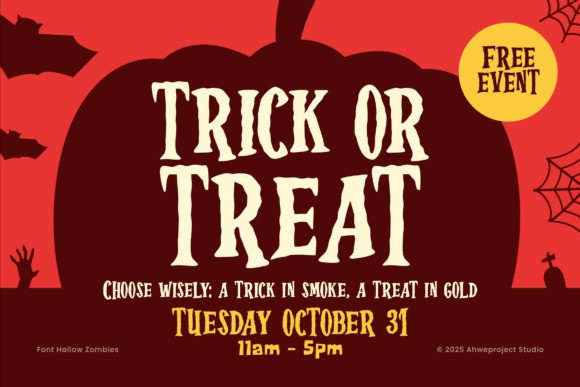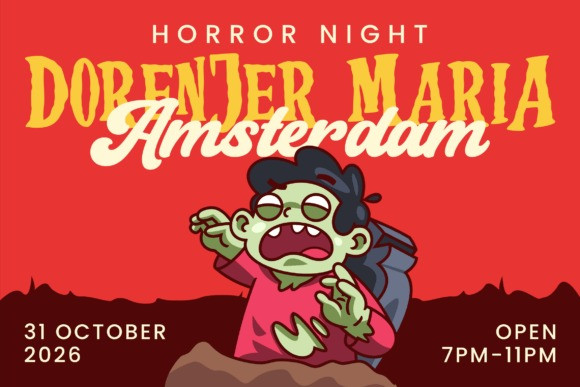
Hallow Zombies Font is a bold, wavy retro-horror display font—spooky yet fun. Its jagged, cartoon-zombie letterforms grab attention instantly, making it perfect for Halloween posters, game titles, logos, stickers, packaging, YouTube thumbnails, party invites, and merch. Heavy weight = maximum impact and clear readability from a distance. Ideal for creators and brands who want a playful, scary, and memorable look.